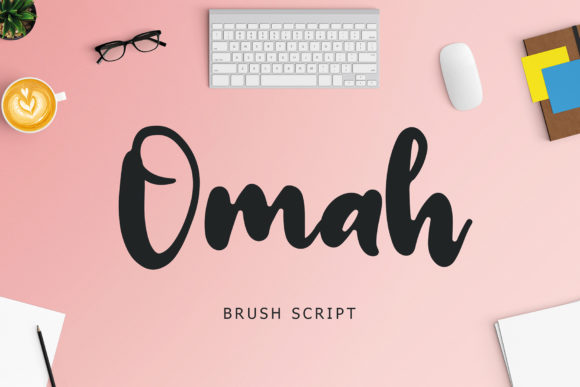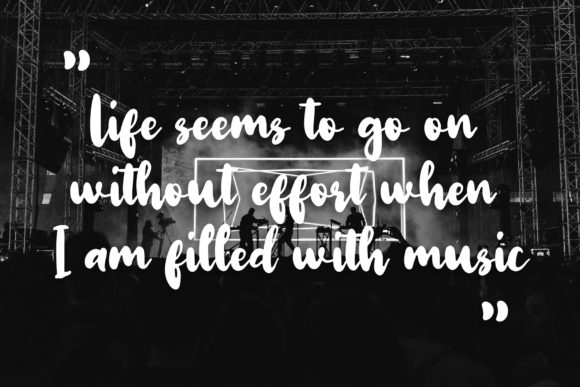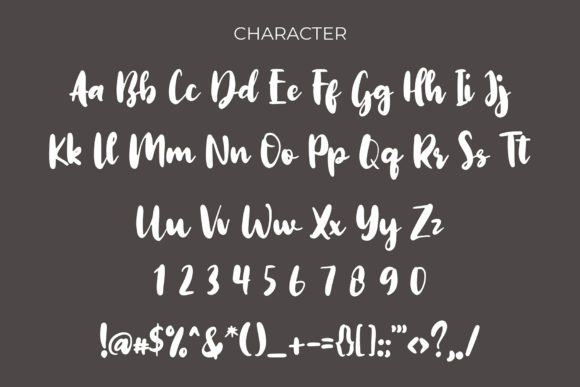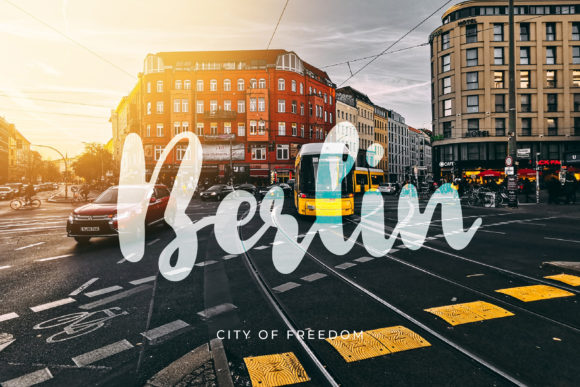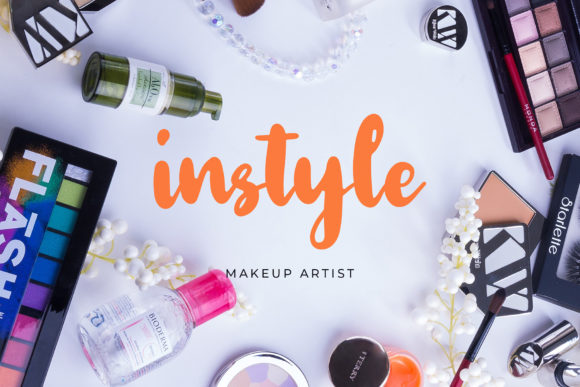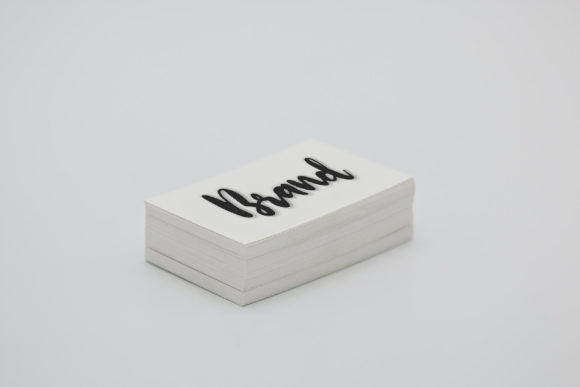
Omah Font
About Omah Font
Omah is a cool handwritten font with a unique brush style. Its casual charm makes it appear wonderfully down-to-earth, readable and, ultimately, incredibly versatile. Omah will look outstanding in any context, whether it’s being used on busy backgrounds or as a standalone headline!